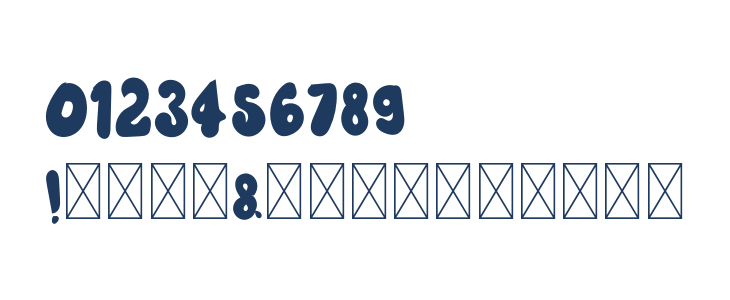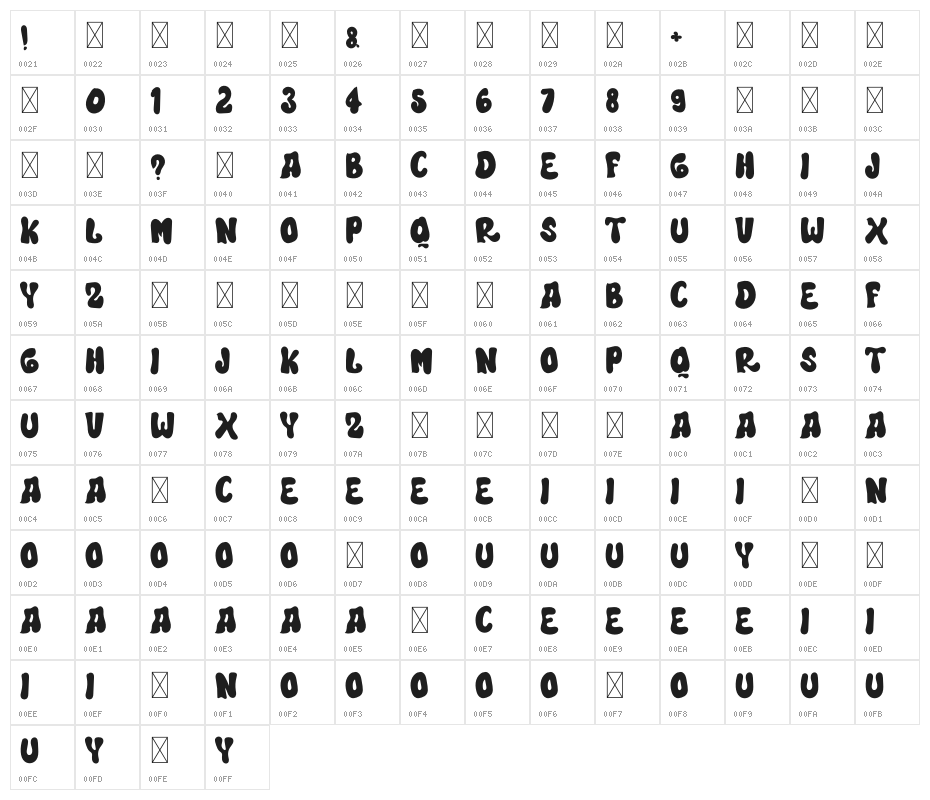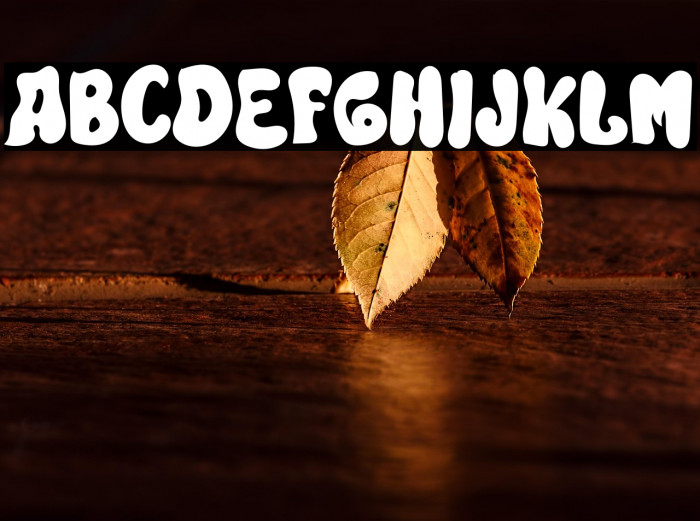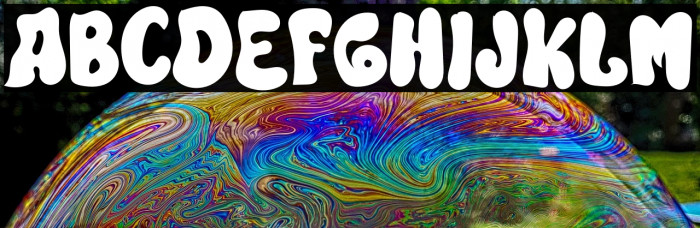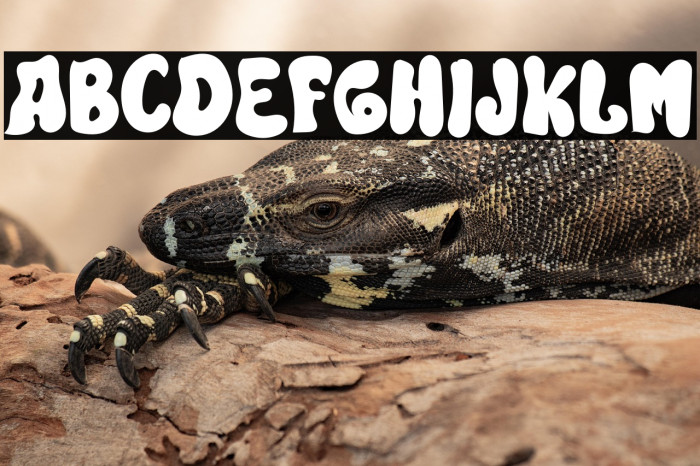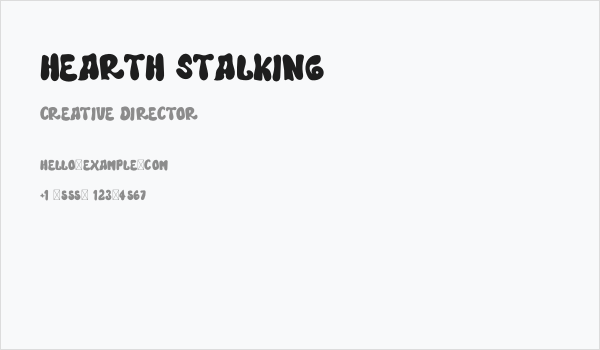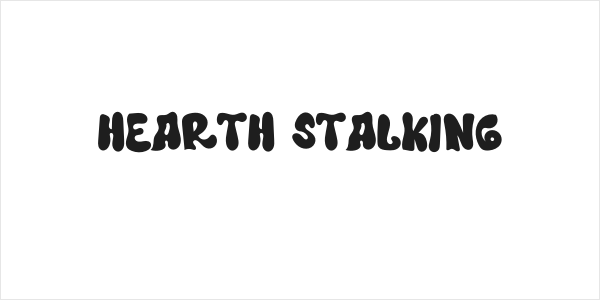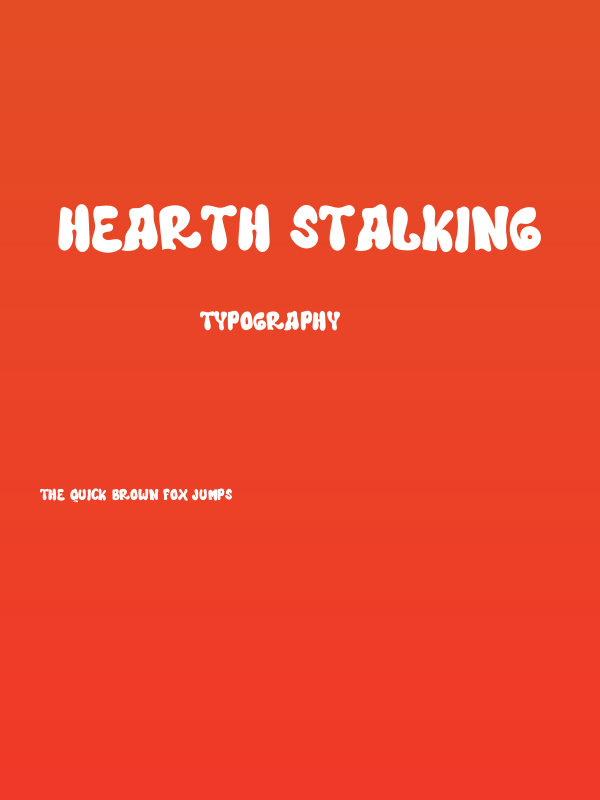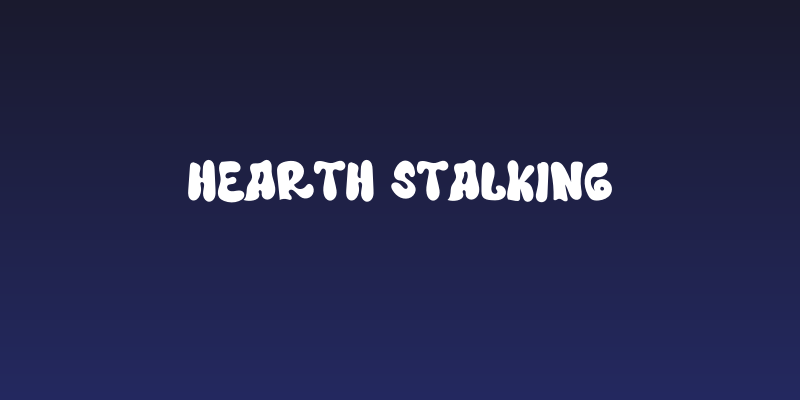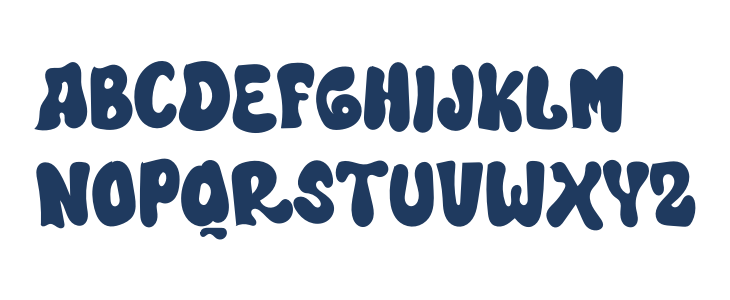
Hearth Stalking Font
Hearth Stalking Description
This font features a bold and playful design with rounded, bubbly characters that convey a sense of fun and whimsy. The letters are thick and have a uniform stroke width, giving them a strong presence on the page. The overall appearance is reminiscent of retro or vintage styles, with a modern twist. The characters are closely spaced, enhancing the boldness and making it ideal for eye-catching headlines or titles. The numbers and special characters maintain the same playful style, ensuring consistency across all text elements.
| Overall Style | Playful, Retro |
| Proposed Projects | Perfect for children's books, playful branding, party invitations, and retro-themed designs. |